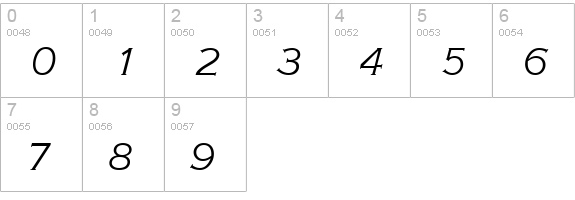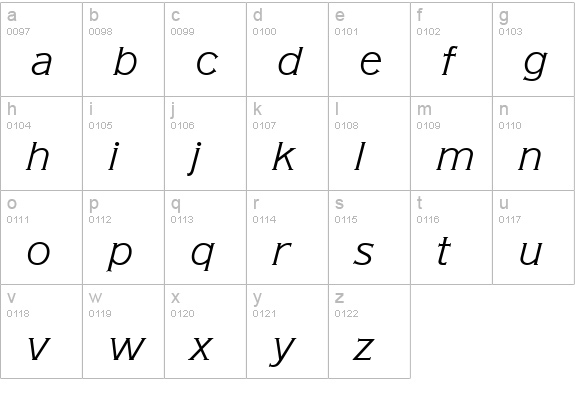
AmericanGotURWTLig Italic is a distinctive, italic variant in the AmericanGotURWTLig typeface family \xE2\x80\x94 well suited to design and typography projects.
AmericanGotURWTLig Italic font is a stylish and elegant typeface that exudes a sense of modernity and sophistication. Its sleek and streamlined design makes it perfect for a wide range of design projects, from logos to headlines to invitations. The italic style adds a touch of flair and personality to any text, making it stand out and capture attention. Best of all, AmericanGotURWTLig Italic font is available for free download at FontsMarket.com. This means that you can easily access this high-quality font without having to spend a dime. Whether you are a designer looking to add a fresh look to your projects or a business owner in need of a professional font for your branding, AmericanGotURWTLig Italic font is the perfect choice. Download it today and elevate your designs with this versatile and eye-catching typeface.